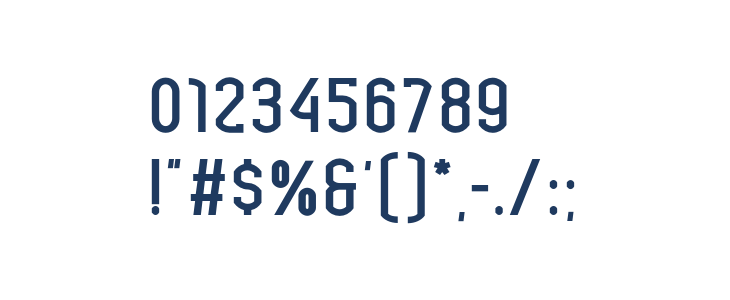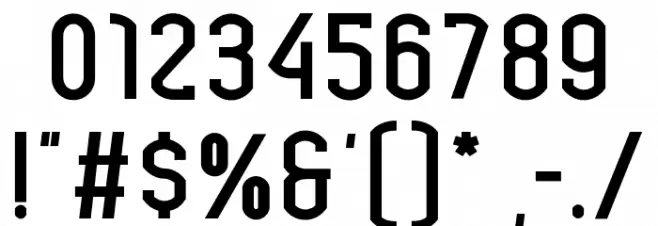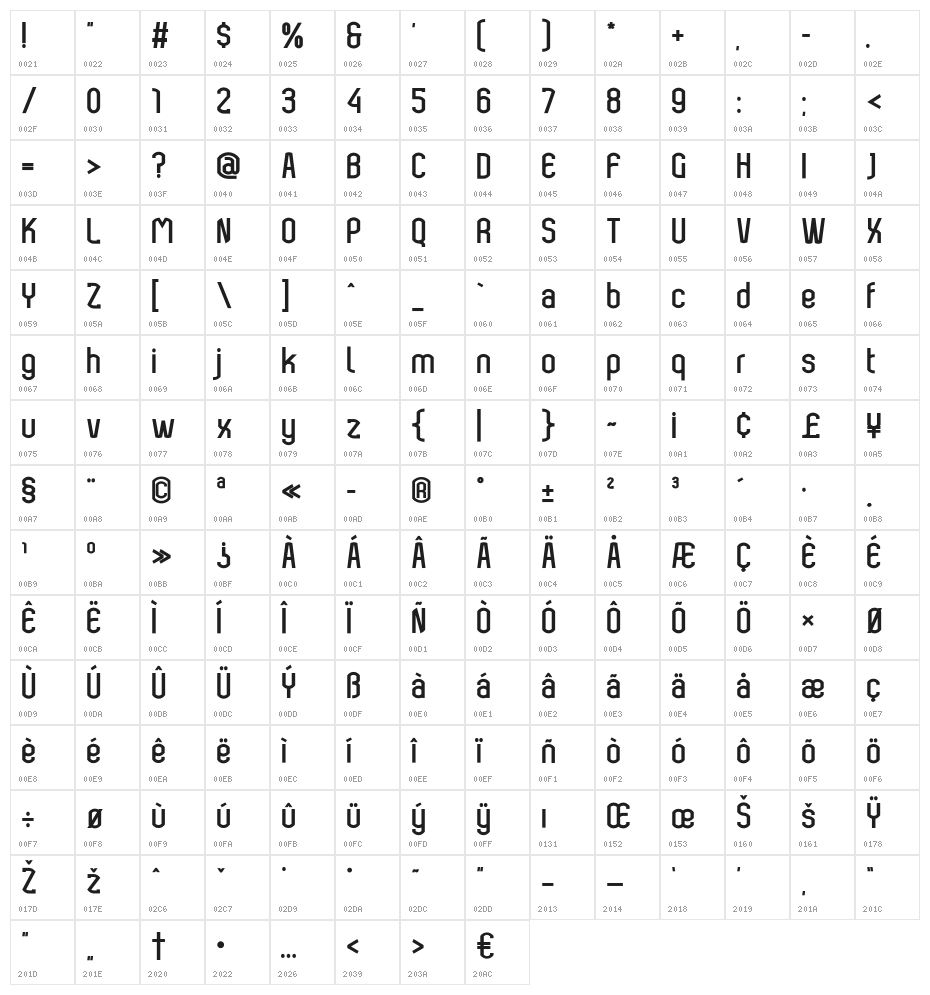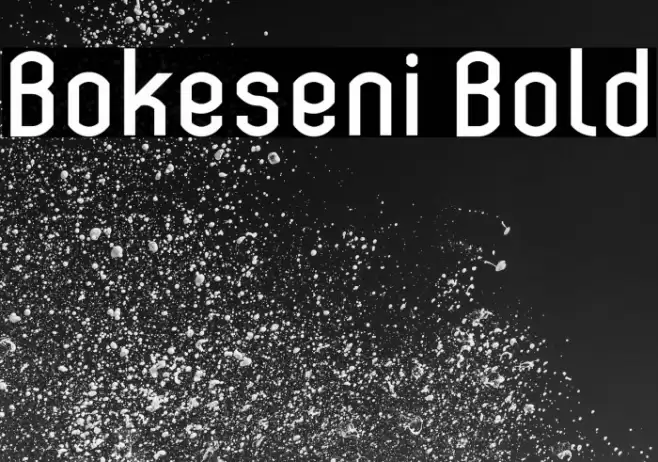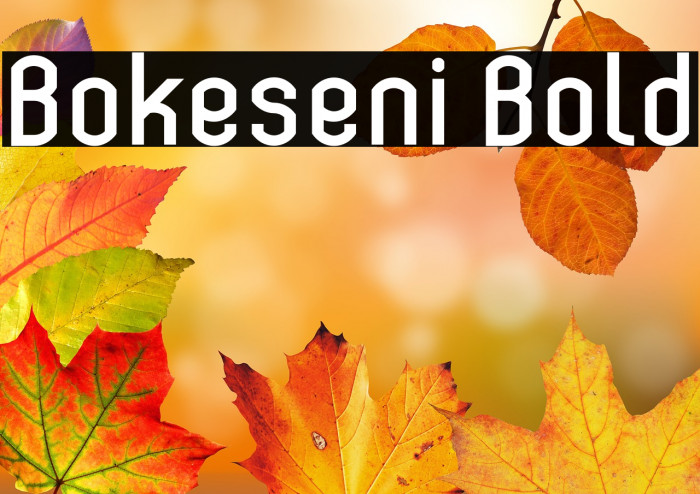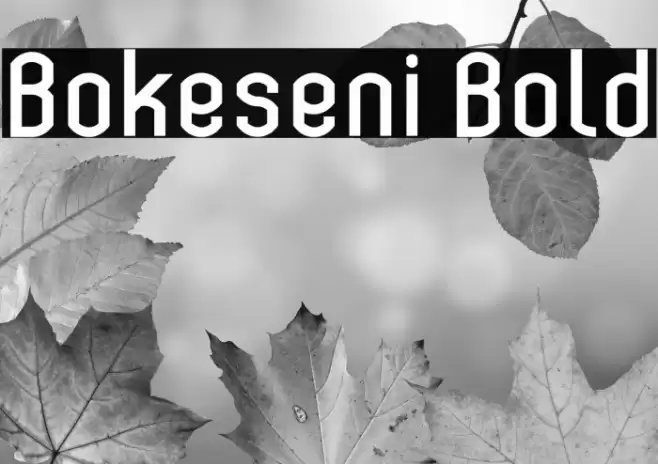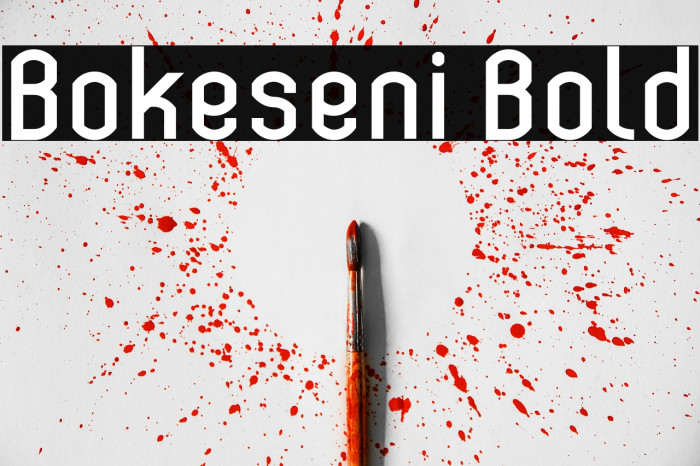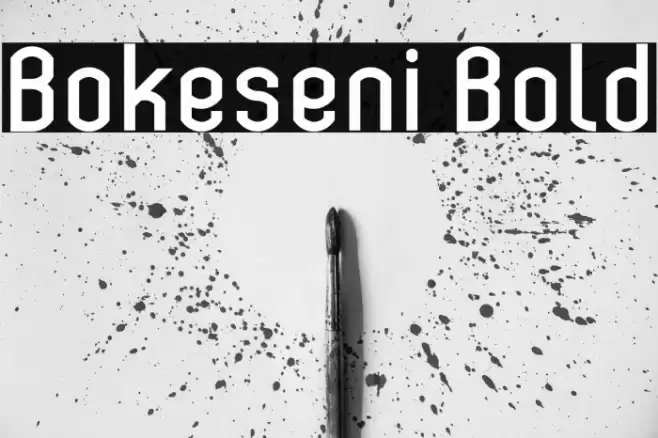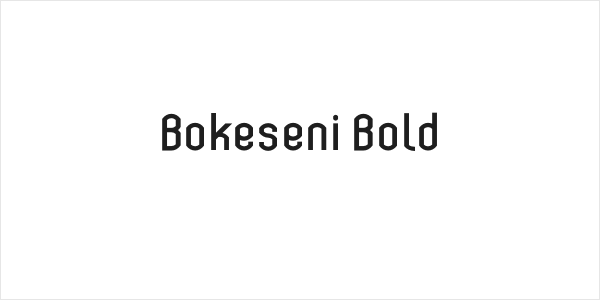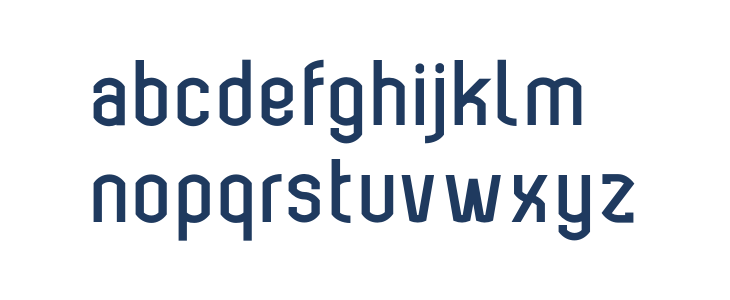
Bokeseni Bold Font
Bokeseni Bold Description
This font features a bold and geometric design with a modern touch. The characters are constructed with straight lines and sharp angles, giving it a distinct and structured appearance. The uppercase and lowercase letters maintain a consistent height and width, creating a uniform look across the board. The numerals are clear and easy to read, matching the style of the alphabetic characters. Special characters are included, each designed to fit seamlessly with the overall aesthetic. The font's boldness makes it stand out, while its geometric nature adds a contemporary feel, making it suitable for various design applications.
| Proposed Projects | Ideal for branding, headlines, posters, and modern web design projects. |